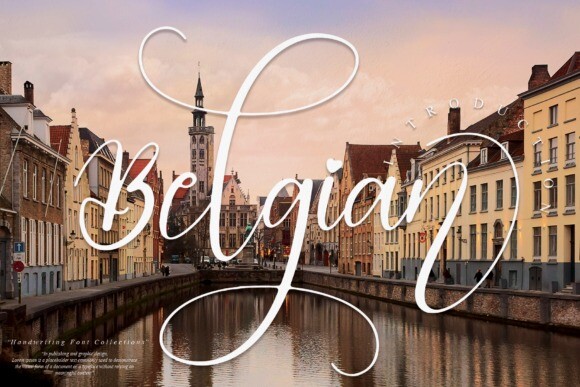
Belgian Script Font
Belgian Script Font is a chic, refined script font that emanates sophistication and elegance. Its stylish alternates and ligatures make this font the perfect match for any project.
Belgian is PUA encoded which means you can access all of the glyphs and swashes with ease!